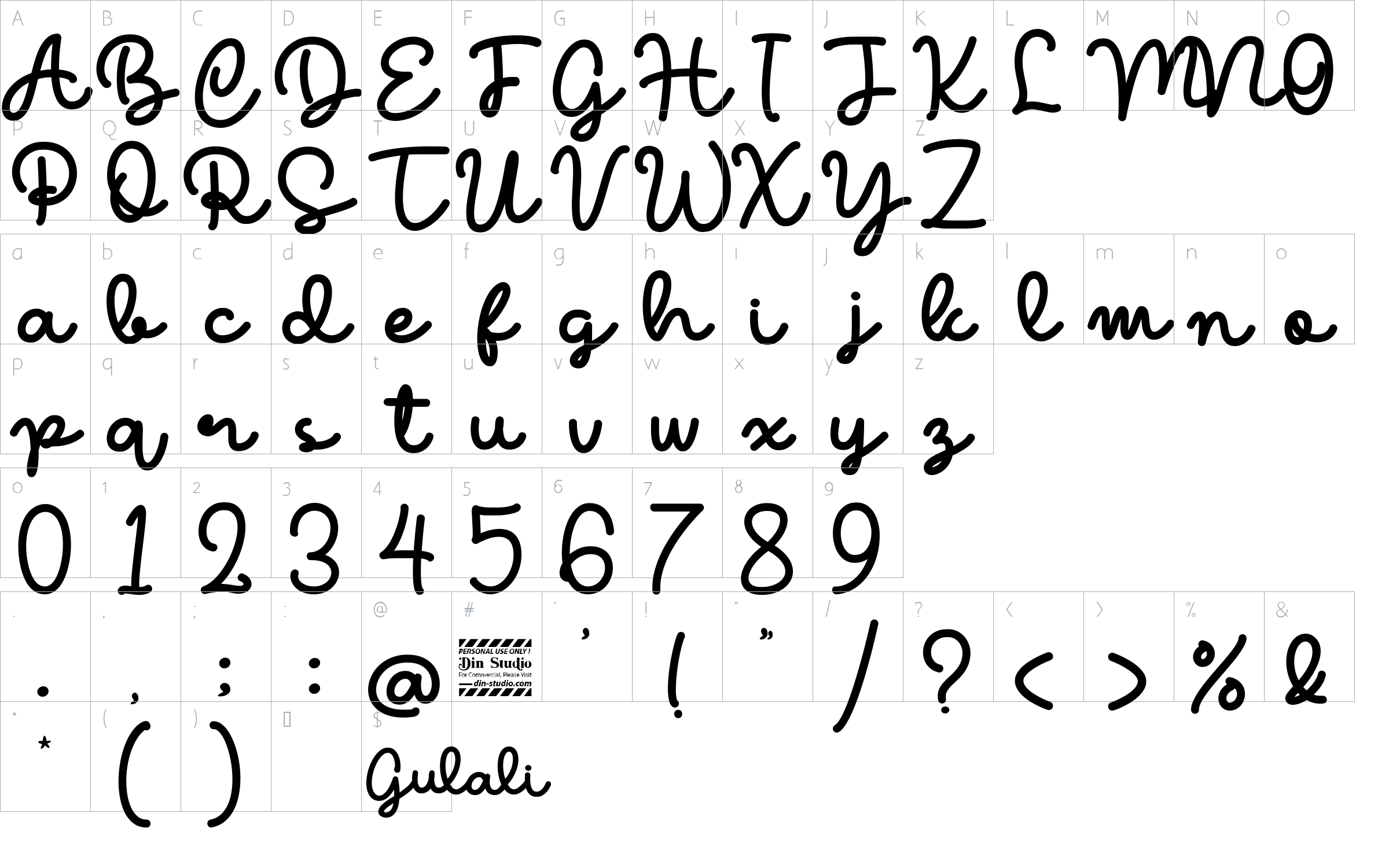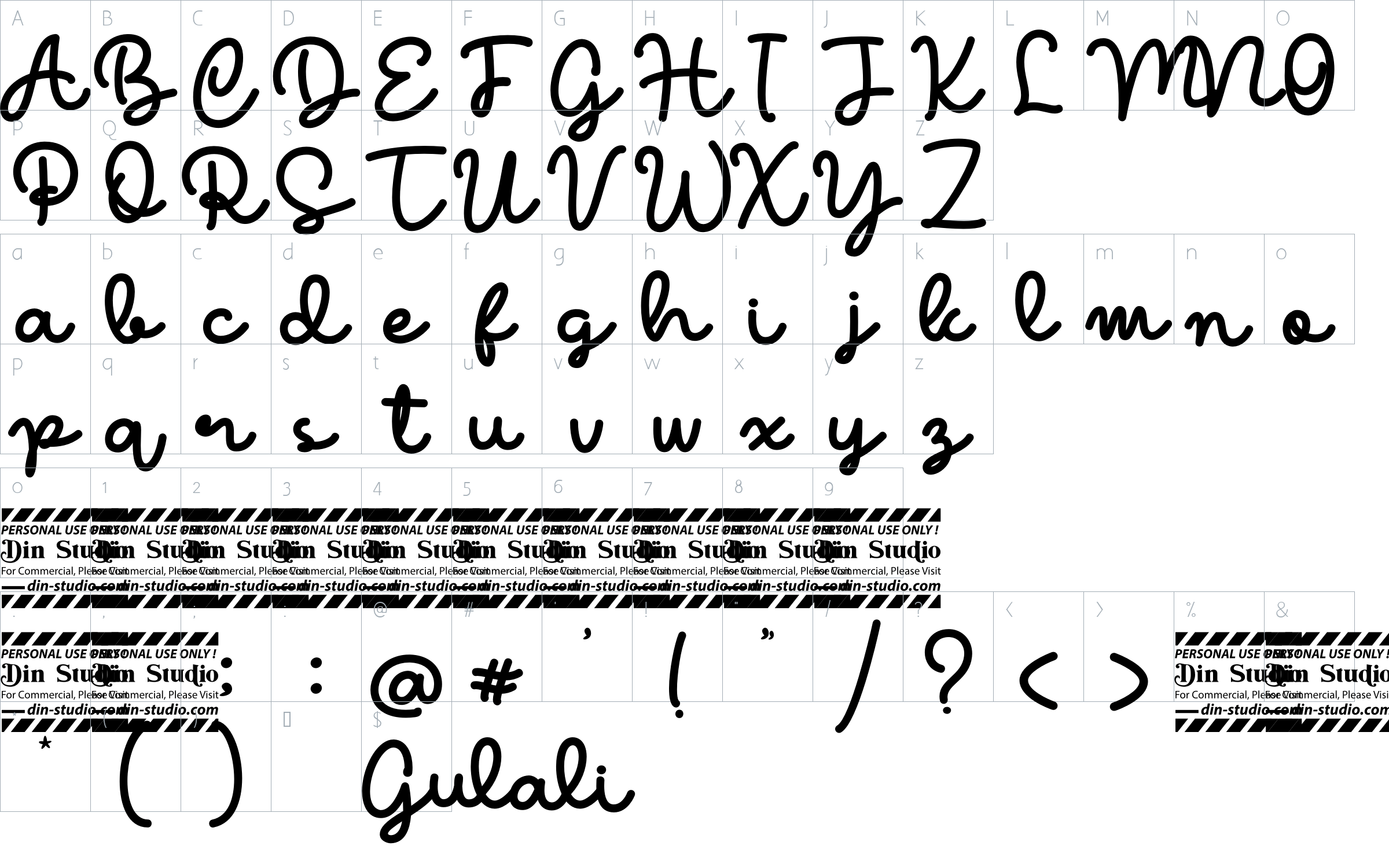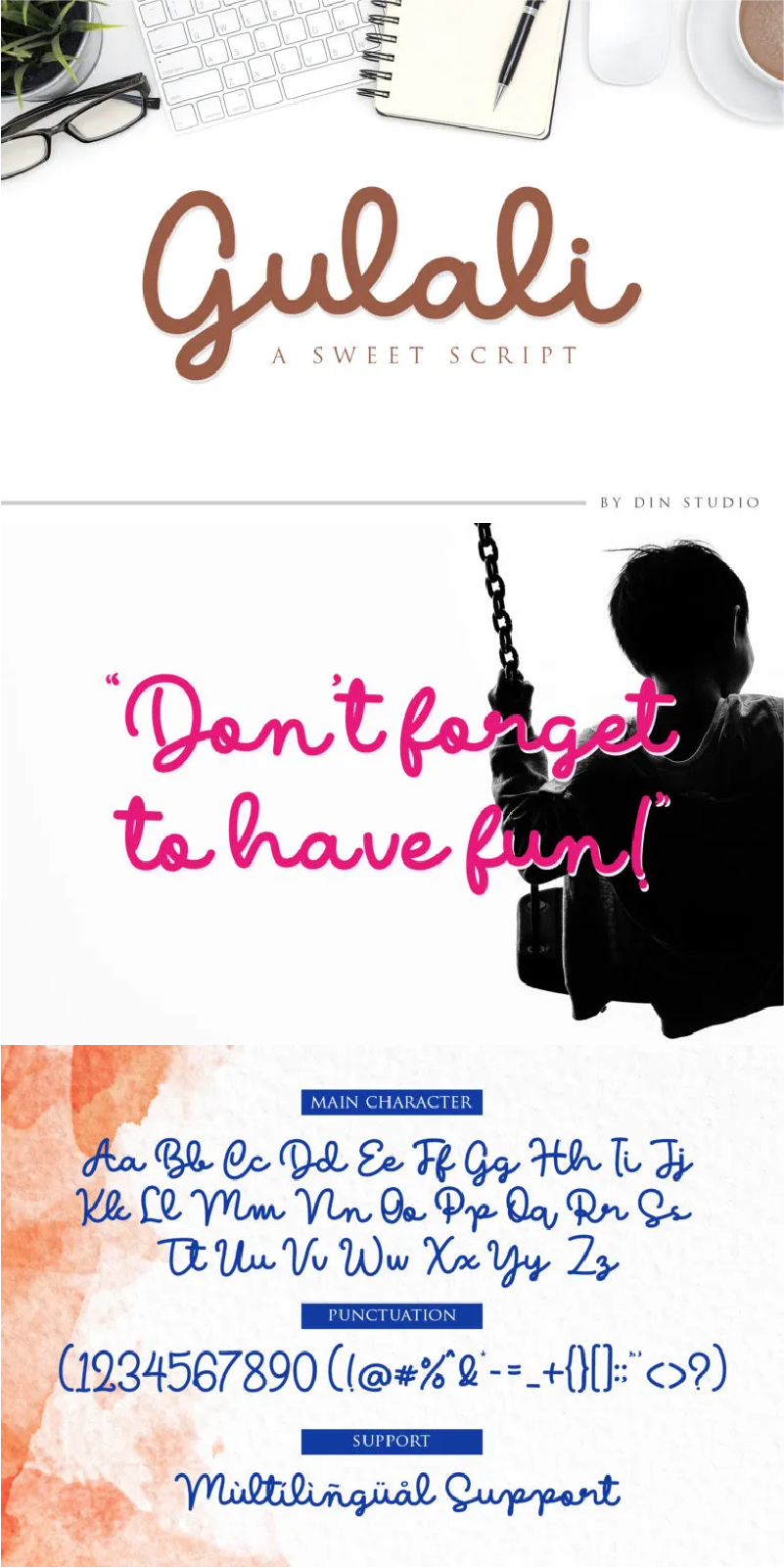
Gulali Font
About Gulali
Gulali ia a sweet script font. It is suitable for many projects design especially for a branding project, wedding, and lettering. Every letter has a unique and beautiful touch. This font’s made from our talented with love and unique. The font includes full set of hand lettered uppercase and lowercase letters, numerals, and punctuation.
- Numerals and punctuation